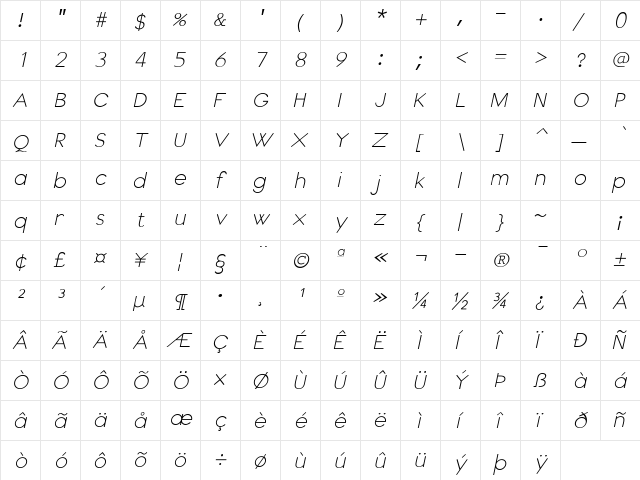
CadetSSK Italic
Design Context for CadetSSK Typeface
CadetSSK offers clean, dependable letterforms without strong stylistic allegiance, making it a practical choice for designers who need flexibility. The dynamic lean of this cut emphasises speed and emphasis in any layout.
Pro Tip: Try CadetSSK for annotation and caption copy alongside an upright companion — the contrast in angle creates a dynamic but ordered typographic system.